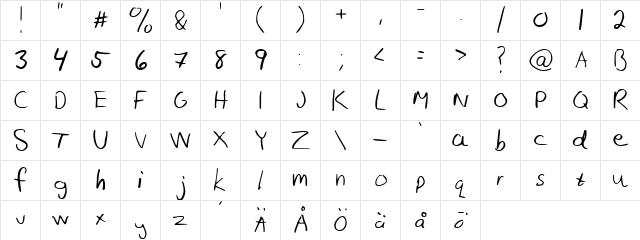
Pete-Boy <> Hand of Pete-Boy Regular Font Preview
Pete-Boy <> Hand of Pete-Boy Regular
Design Context for Pete-Boy <> Hand of Pete-Boy Typeface
Pete-Boy <> Hand of Pete-Boy brings a calligraphic fluidity to the page — its connecting strokes and expressive curves give it an unmistakably human quality. Its slender proportions lend an understated elegance to any composition.